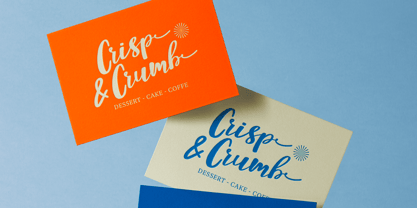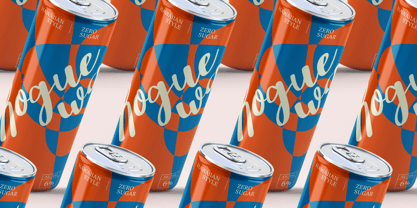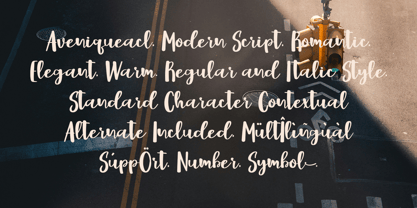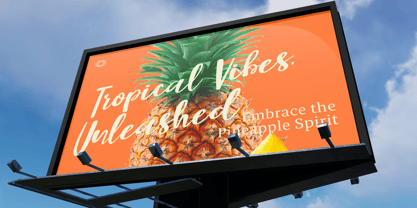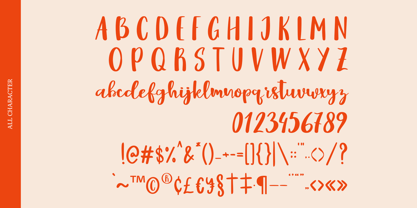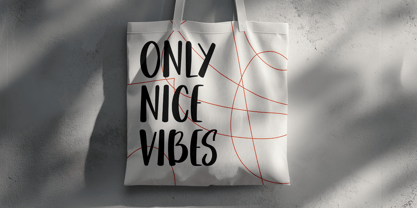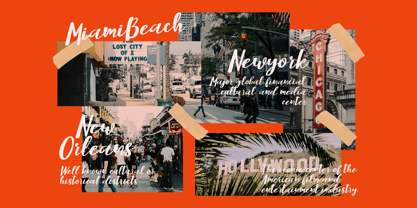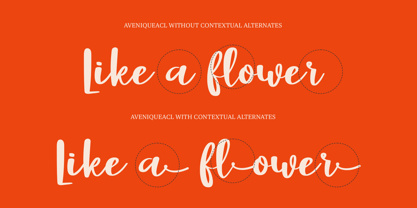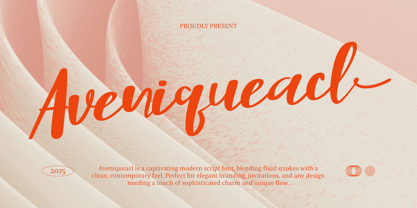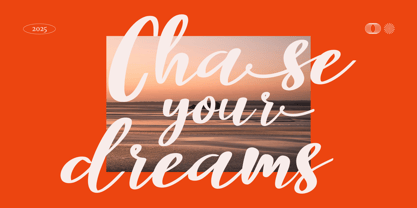
CF Aveniqueacl
The CF Aveniqueacl Font Family was designed by Frederik Aristaputra and published by Indotype. CF Aveniqueacl contains 2 styles and family package options. More about this family
Aveniqueacl is a graceful and expressive modern script typeface that blends handcrafted elegance with contemporary design versatility. Every curve has been carefully drawn to convey sophistication, while its flowing connections ensure a seamless reading experience that feels both natural and refined.
The letterforms feature balanced proportions, gentle swashes, and smooth transitions, making Aveniqueacl ideal for applications where elegance and personality go hand in hand. Its organic rhythm and stylish flair give it the ability to elevate projects from simple text to striking visual statements.
Perfect for branding projects, wedding stationery, social media graphics, product packaging, or editorial layouts, Aveniqueacl offers timeless beauty for both digital and print design. Its versatility allows it to shine in formal contexts while still retaining a warm and approachable character. Whether you’re designing a luxury logo, a heartfelt greeting card, or an artistic headline, Aveniqueacl brings a refined, modern charm that resonates with elegance in every curve.